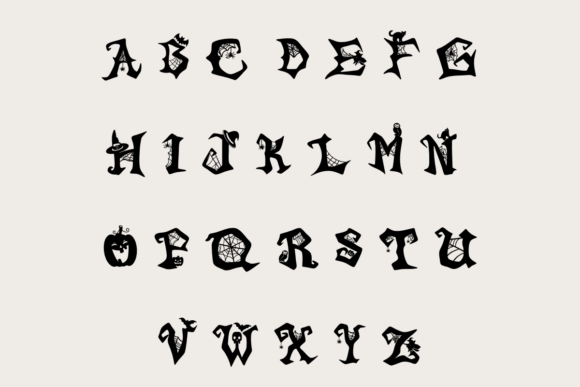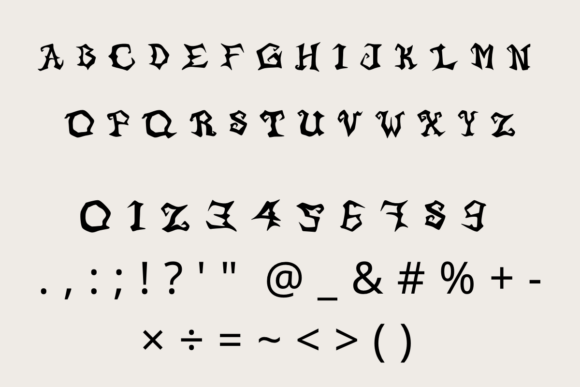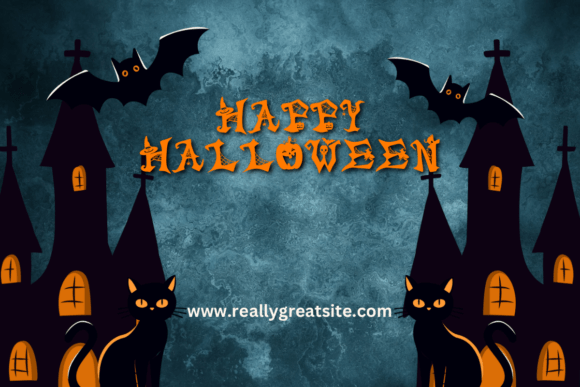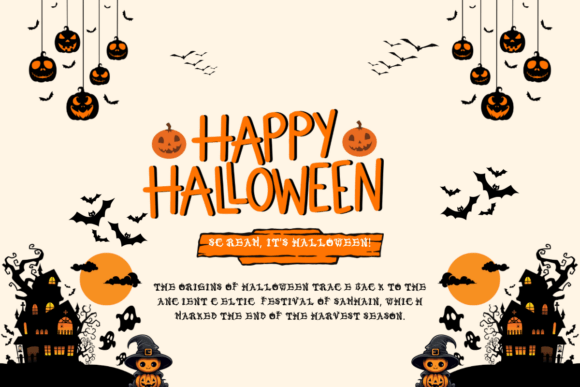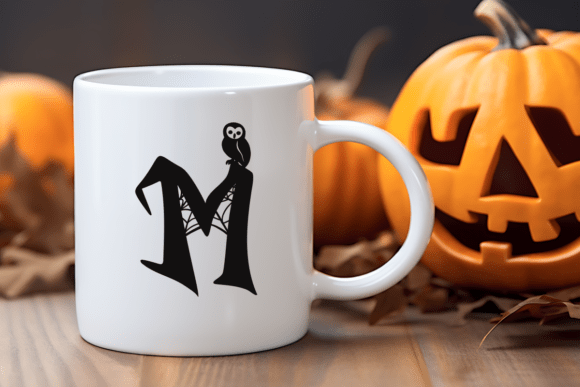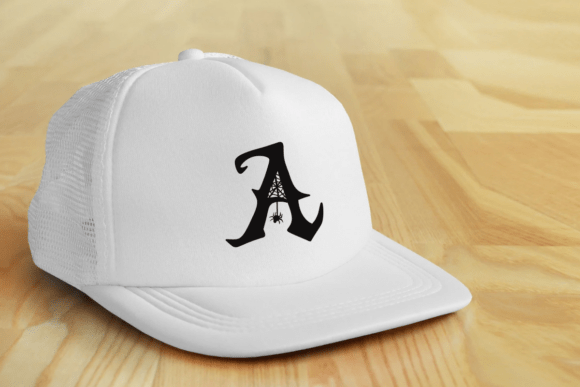
Unleash the Spooky Spirit: A Comprehensive Guide to Halloween Font
Halloween is just around the corner, and what better way to get into the spooky spirit than with a font that’s bursting with festive fright? Look no further than the Halloween Font, a creatively designed typeface that’s perfect for adding a playful yet sinister touch to your Halloween projects. In this article, we’ll dive into the details of this fantastic font and explore how you can use it to bring your Halloween designs to life.
What is Halloween Font?
The Halloween Font is a decorative font that’s specifically designed to capture the essence of Halloween. Each letter is carefully crafted to incorporate eerie Halloween-themed illustrations, including witch hats, spider webs, bats, skulls, and more. This bold and whimsical font is perfect for creating spooky invitations, haunted party posters, creepy crafts, or any project that needs a Halloween twist.
Key Features of Halloween Font
- Creepy and Whimsical Design: The Halloween Font features a unique and playful design that’s perfect for adding a touch of spookiness to your projects.
- Eerie Illustrations: Each letter is creatively integrated with eerie Halloween-themed illustrations, including witch hats, spider webs, bats, skulls, and more.
- Bold and Eye-Catching: The font is bold and eye-catching, making it perfect for creating attention-grabbing designs.
- Versatile: The Halloween Font can be used for a wide range of projects, from spooky invitations and haunted party posters to creepy crafts and more.
How to Use Halloween Font in Your Designs
The Halloween Font is incredibly versatile and can be used in a variety of ways to add a spooky touch to your designs. Here are a few ideas to get you started:
- Spooky Invitations: Use the Halloween Font to create spooky invitations for Halloween parties, haunted houses, or other spooky events.
- Haunted Party Posters: Create eye-catching posters for Halloween parties, trick-or-treat events, or other spooky gatherings.
- Creepy Crafts: Use the Halloween Font to add a spooky touch to your Halloween crafts, such as jack-o-lanterns, ghostly decorations, or spooky centerpieces.
- Social Media Graphics: Create spooky social media graphics to get your followers in the mood for Halloween.
Tips for Getting the Most Out of Halloween Font
Here are a few tips for getting the most out of the Halloween Font:
- Experiment with Colors: Try out different color combinations to find the perfect look for your design.
- Mix and Match: Combine the Halloween Font with other fonts or graphics to create a unique look.
- Play with Size: Experiment with different font sizes to create visual interest and emphasis.
- Add Texture and Patterns: Add texture and patterns to your design to give it an extra layer of depth and interest.
The Halloween Font is a fantastic resource for designers and crafters looking to add a spooky touch to their Halloween projects. With its creepy and whimsical design, bold and eye-catching illustrations, and versatile uses, this font is sure to be a hit with anyone looking to create spooky and fun designs. So why wait? Download the Halloween Font today and start creating your own spooky masterpieces!
Whether you’re a designer, crafter, or simply someone who loves Halloween, the Halloween Font is a must-have resource for anyone looking to get into the spooky spirit. So go ahead, get creative, and have fun with this amazing font!